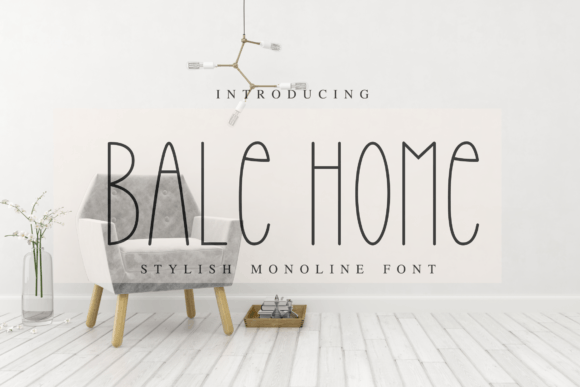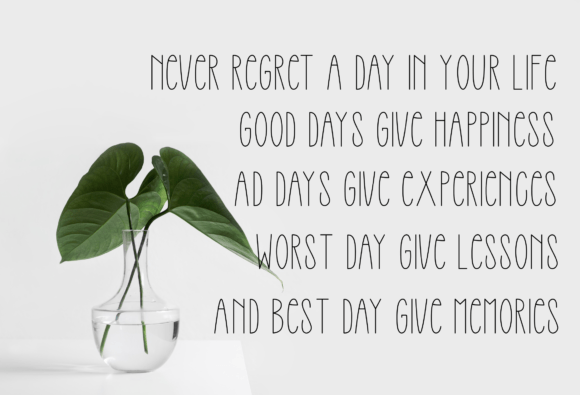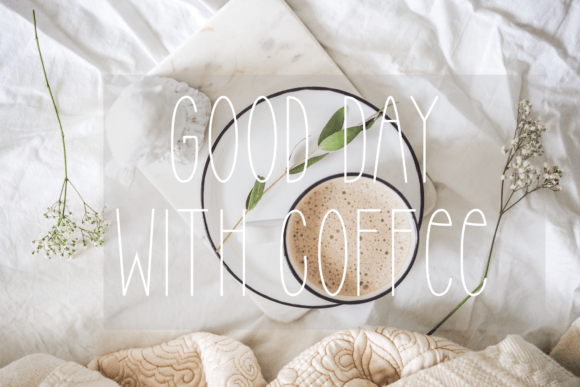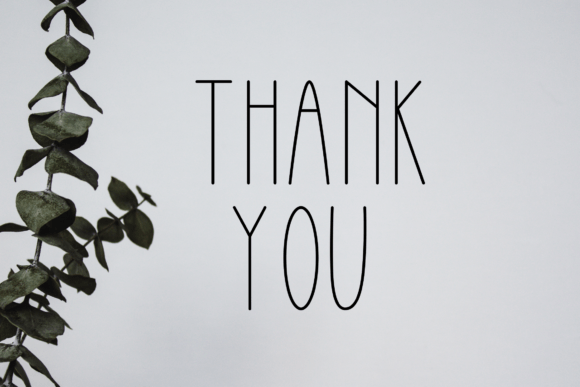
Bale Home Font: The Ultimate Modern Sans Serif for Designers and Crafters
In the world of typography, a good font can make all the difference in the success of a design project. For designers and crafters looking for a modern and trendy sans serif font, Bale Home is an excellent choice. This stylish and thin font is quickly becoming a favorite among creative professionals, and for good reason. In this article, we’ll take a closer look at Bale Home Font, its features, and why it’s a must-have for any designer or crafter.
What is Bale Home Font?
Bale Home Font is a modern sans serif font that exudes elegance and sophistication. Its thin lines and sleek design make it perfect for a variety of design projects, from branding and advertising to crafting and DIY projects. The font’s clean and minimalist aesthetic ensures that it pairs well with a wide range of design elements, making it a versatile choice for any project.
Key Features of Bale Home Font
So, what sets Bale Home Font apart from other sans serif fonts? Here are some of its key features:
• Thin and sleek design: Bale Home Font boasts a thin and sleek design that gives it a modern and trendy feel.
• Clean and minimalist aesthetic: The font’s clean and minimalist design ensures that it pairs well with a wide range of design elements.
• Highly legible: Despite its thin lines, Bale Home Font is highly legible, making it perfect for body text and headlines.
• Versatile: The font’s versatility makes it suitable for a wide range of design projects, from branding and advertising to crafting and DIY projects.
Why Choose Bale Home Font?
With so many fonts available, why choose Bale Home Font? Here are some reasons why designers and crafters are falling in love with this font:
• Modern and trendy: Bale Home Font is a modern and trendy sans serif font that will give your designs a fresh and contemporary look.
• Elegant and sophisticated: The font’s thin lines and sleek design give it an elegant and sophisticated feel that’s perfect for high-end designs.
• Easy to read: Bale Home Font is highly legible, making it perfect for body text and headlines.
• Pairs well with other design elements: The font’s clean and minimalist aesthetic ensures that it pairs well with a wide range of design elements.
How to Use Bale Home Font in Your Designs
So, how can you use Bale Home Font in your designs? Here are some ideas to get you started:
• Branding and advertising: Use Bale Home Font to create modern and trendy branding and advertising materials, such as logos, brochures, and flyers.
• Crafting and DIY projects: The font’s elegant and sophisticated feel makes it perfect for crafting and DIY projects, such as handmade cards, gift tags, and scrapbooking.
• Web design: Bale Home Font is highly legible on digital screens, making it a great choice for web design projects, such as website headers, blog posts, and social media graphics.
In conclusion, Bale Home Font is a stylish and thin sans serif font that’s perfect for designers and crafters looking for a modern and trendy font. Its clean and minimalist aesthetic, highly legible design, and versatility make it a must-have for any design project. Whether you’re working on branding and advertising materials, crafting and DIY projects, or web design projects, Bale Home Font is an excellent choice. So why not give it a try and see why it’s quickly becoming a favorite among creative professionals?